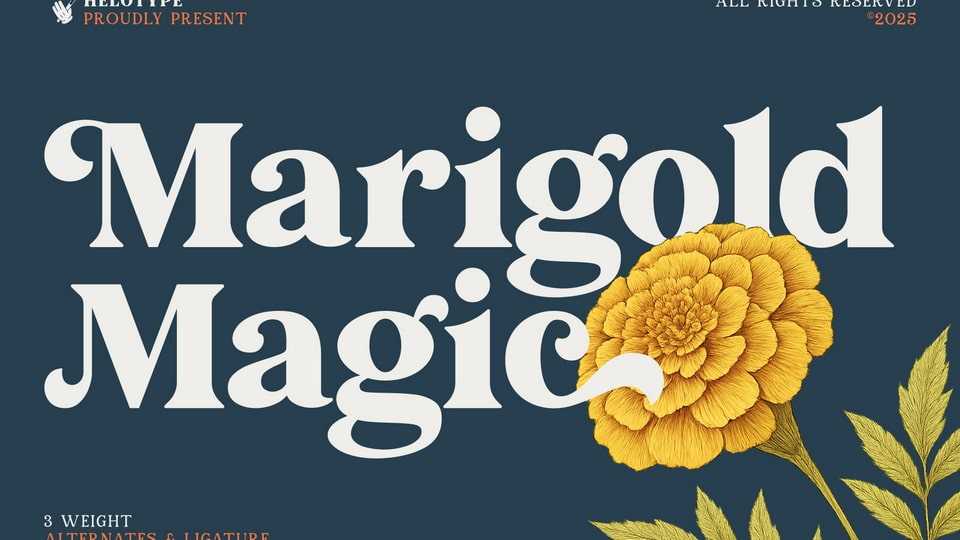
Download Marigold Magic font, a vintage-inspired serif typeface that exudes charm and elegance. This versatile font is perfect for adding a touch of classic sophistication to your designs.
Designer: Helotype